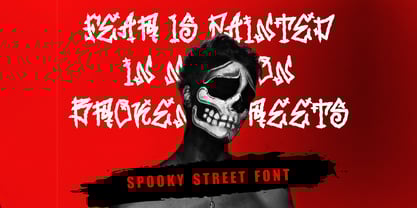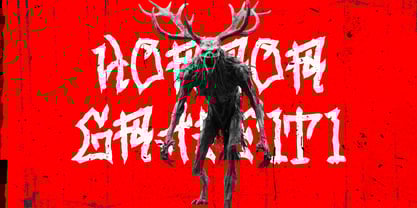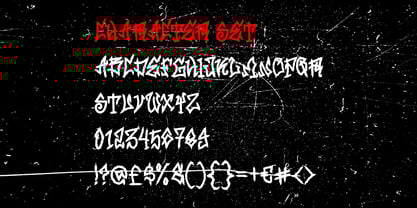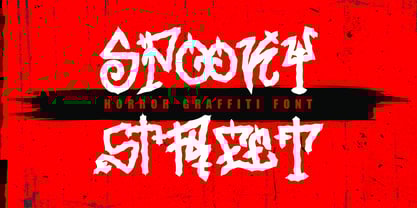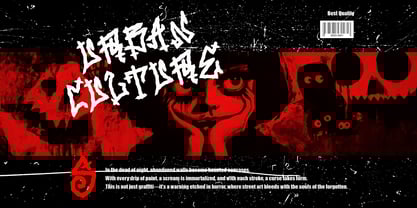
Spooky Street
by Shanaf
The Spooky Street Font Family was designed by Yesie Erma Yunita and published by Shanaf. Spooky Street contains 1 styles. More about this family
Spooky Street is a chilling horror graffiti font crafted to haunt your next creative project. Each letter screams with gritty textures, warped lines, and raw edges—resembling blood-splattered street art on cursed alley walls. The letterforms twist and claw, with irregular shapes that feel like symbols scrawled by the undead. Its cryptic, chaotic energy makes this typeface an ideal tool for horror film titles, punk-style posters, spine-chilling stickers, or haunted house branding. Red-black color schemes, broken letter geometry, and grungy textures all amplify the horror appeal.
Designed to inject fear into your visuals, Spooky Street performs best in bold display settings. It’s a sinister choice for Halloween packaging, eerie book covers, or urban death-metal logos. Use it for branding dark events, designing cursed album art, or enhancing eerie greeting cards. Whether you’re crafting for cult horror or underground rebellion, this font delivers an unfor